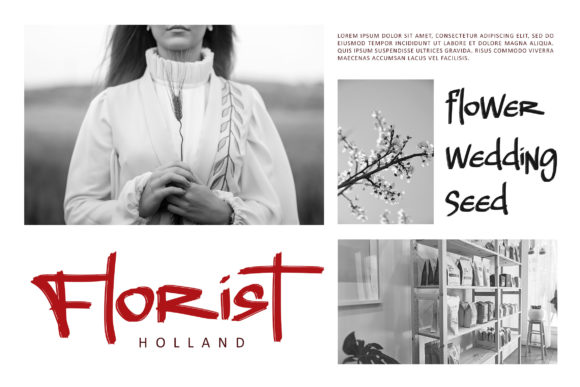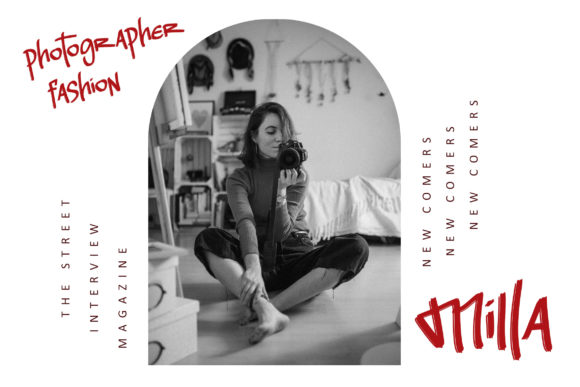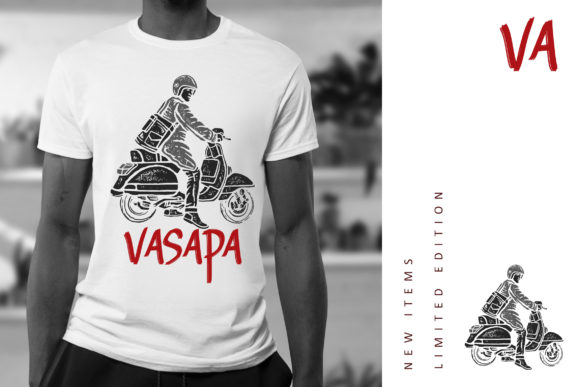
Introduction to Rollstar Font
Do you remember that moment when you’re brainstorming ideas for a new creative project and you need a font that screams ‘street style’? The kind of font that grabs attention, conveys energy, and makes your design pop? For many designers, that moment is a reality with the Rollstar Font. This cool, graffiti-styled display font has a unique street art vibe that’s perfect for designs ranging from t-shirts and sportswear to logos and advertisements.
As a valuable design resource, Rollstar Font offers a high-quality solution for designers looking to add a touch of urban flair to their work. Whether you’re working on a project with a transparent background or need a font that can stand out in a crowded space, Rollstar Font is a great choice. And the best part? It’s available for free download, making it an accessible option for designers of all levels.
Key Features of Rollstar Font
- High-quality design resource with a unique, futuristic style, ideal for creative projects and futuristic themes.
- Includes a comprehensive character set with a wide range of glyphs, including letters, numbers, and symbols.
- Perfect for use in digital design, graphic design, and web design projects, including logos, icons, and typography.
Honest Review: Rollstar Font
As a designer, I’m always on the lookout for high-quality design resources to elevate my creative projects. The Rollstar Font is one such resource that caught my attention, and I’m excited to share my honest review with you.
- ✨ Unique and stylish design that’s perfect for modern projects
- ✨ High-quality font that’s suitable for both digital and print materials
However, I do have a few concerns:
- ⚠️ Limited font styles, which may not be ideal for projects requiring a wide range of fonts
- ⚠️ Transparent background option is not available, which may cause issues with certain design applications
Overall, the Rollstar Font is a solid addition to any designer’s toolkit. While it may not be perfect, its unique design and high-quality font make it an excellent choice for creative projects. If you’re looking for a free design resource that’s easy to use, the Rollstar Font is definitely worth checking out.
Tips for Getting the Most Out of Rollstar Font
To get the most out of the Rollstar Font, use it in conjunction with other design elements, such as graphics and images. Experiment with different font sizes and styles to create a unique look. Also, consider using the font in combination with other design resources to create a cohesive brand identity.
The Rollstar Font is ideal for a variety of creative projects, including:
- Presentation slides
- Business cards
- Posters
- Brochures
Alternatives to Rollstar Font
Montserrat Font is a modern sans-serif font that is perfect for creative projects that require a high-quality, urban feel. It is available for free download and comes in various weights and styles. When to use: For designs that need a clean and minimalistic look, such as logos, headings, and body text. Montserrat Font is a great alternative to Rollstar Font as it has a similar modern feel but with a more geometric and urban aesthetic.
Great Vibes Font is a beautiful, handwritten font that is ideal for creative projects that require a touch of elegance and sophistication. It is available for free download and comes with a transparent background, making it perfect for designs that need a subtle and refined look. When to use: For designs that need a personal and unique touch, such as wedding invitations, quotes, and social media graphics. Great Vibes Font is a great alternative to Rollstar Font as it has a similar handwritten feel but with a more whimsical and romantic aesthetic.